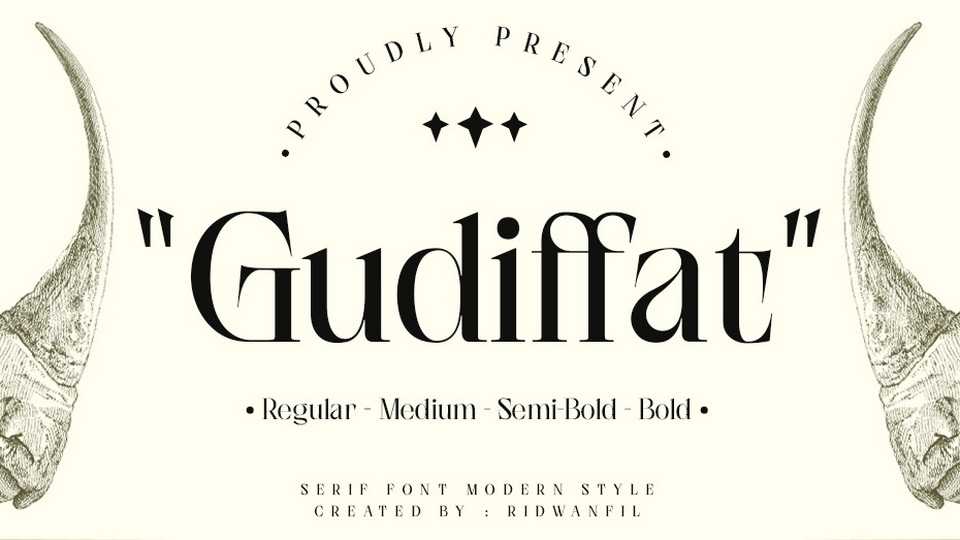
Download Gudiffat font, a modern display serif typeface inspired by the luxurious lifestyle and intellectual brilliance. Gudiffat font is also the best for use in small and large projects.
Designer: Ridwan Fadilah